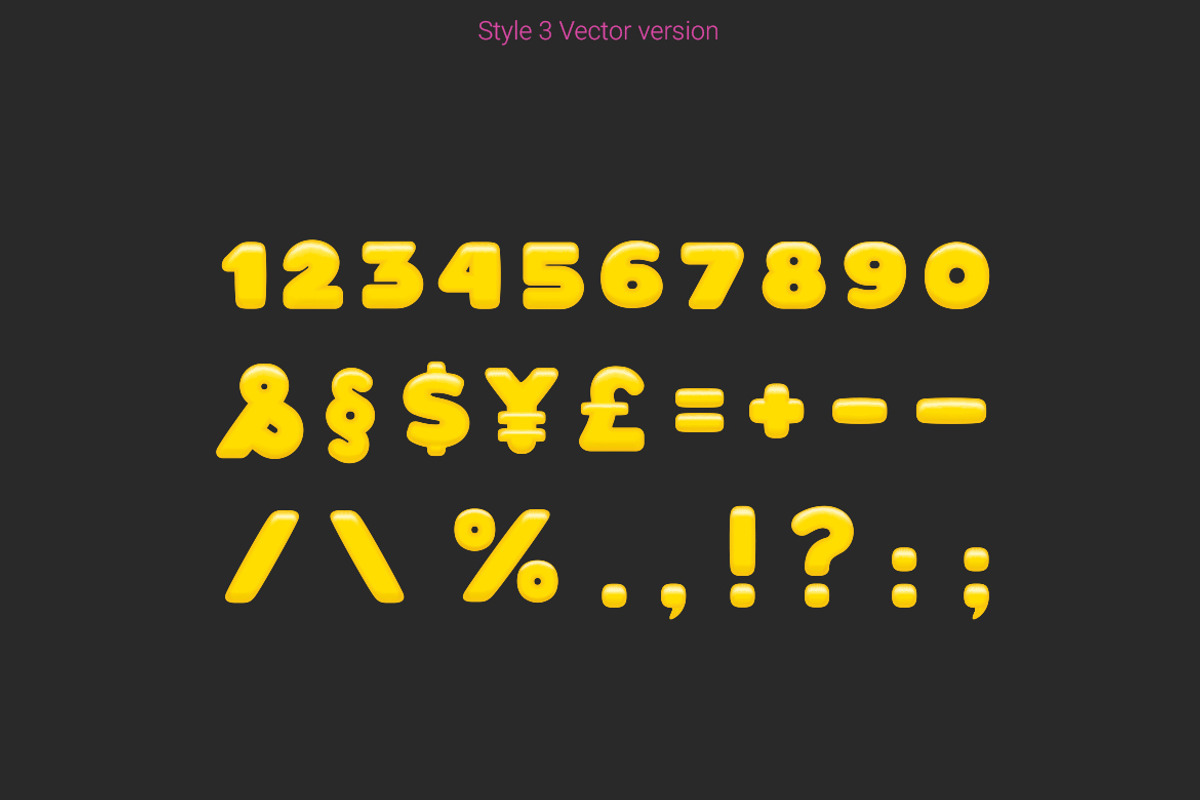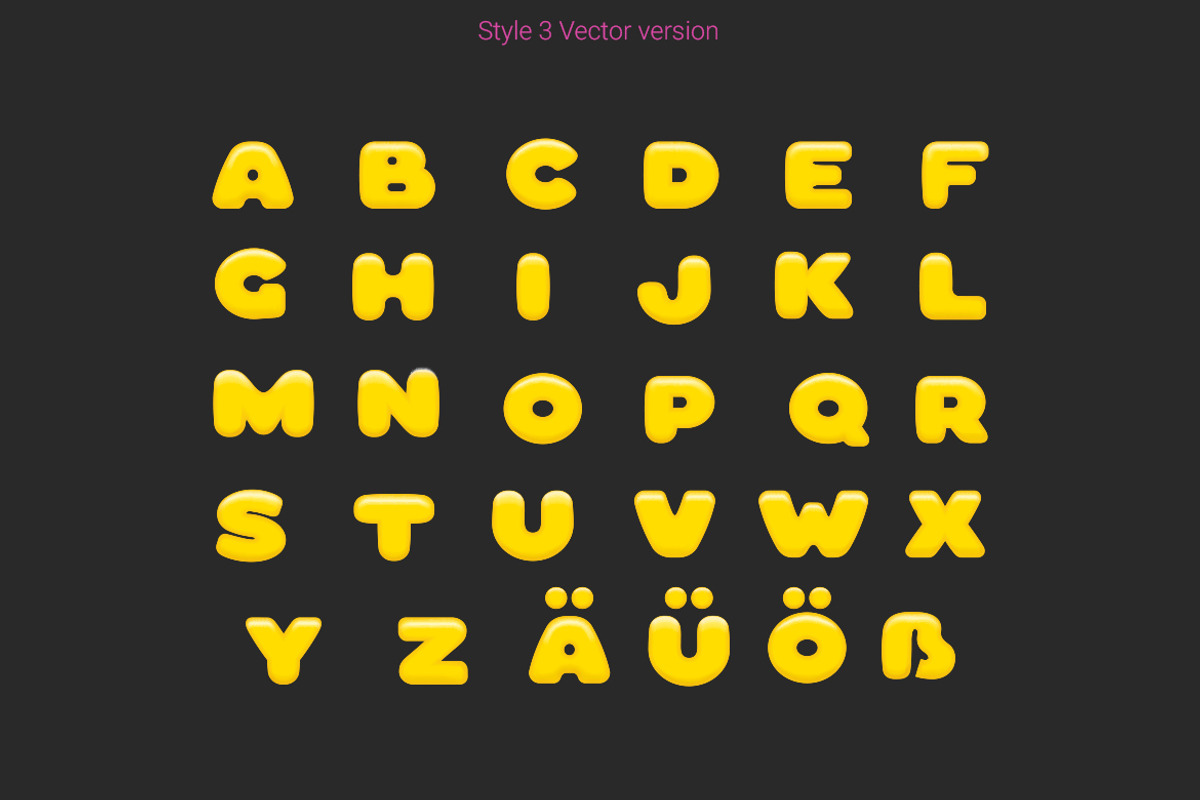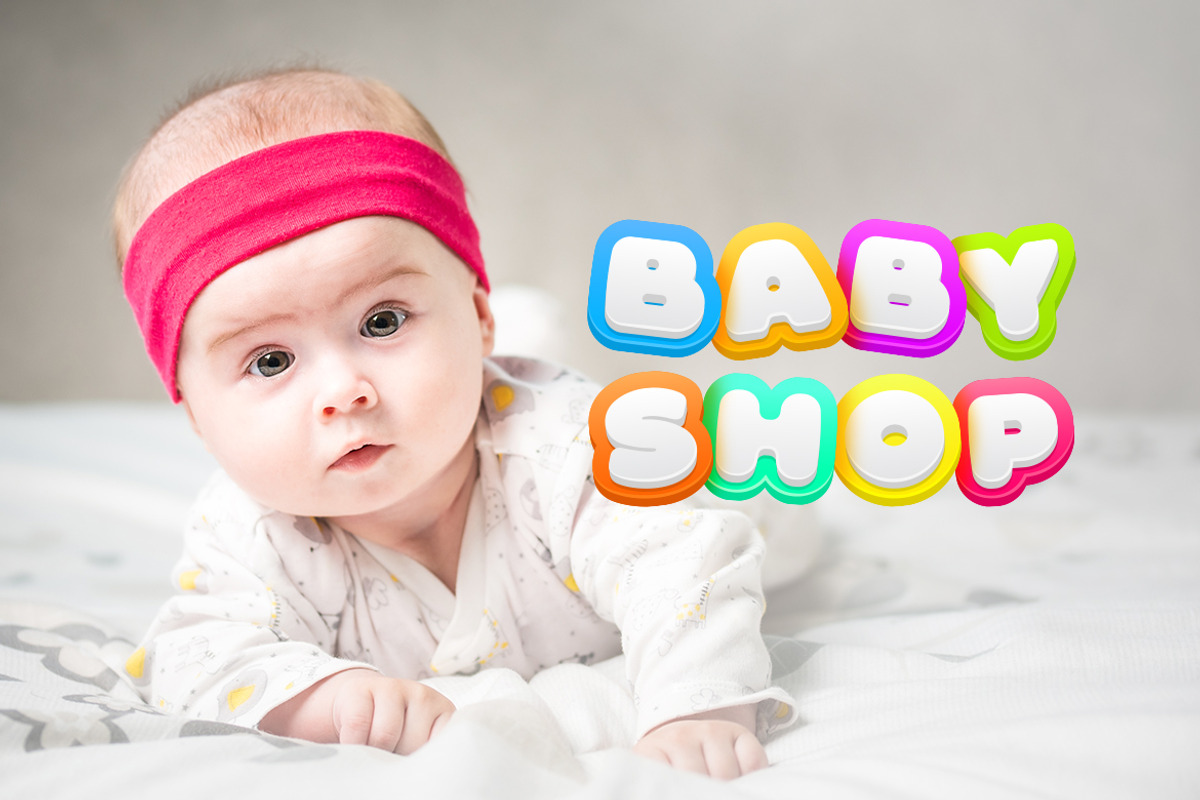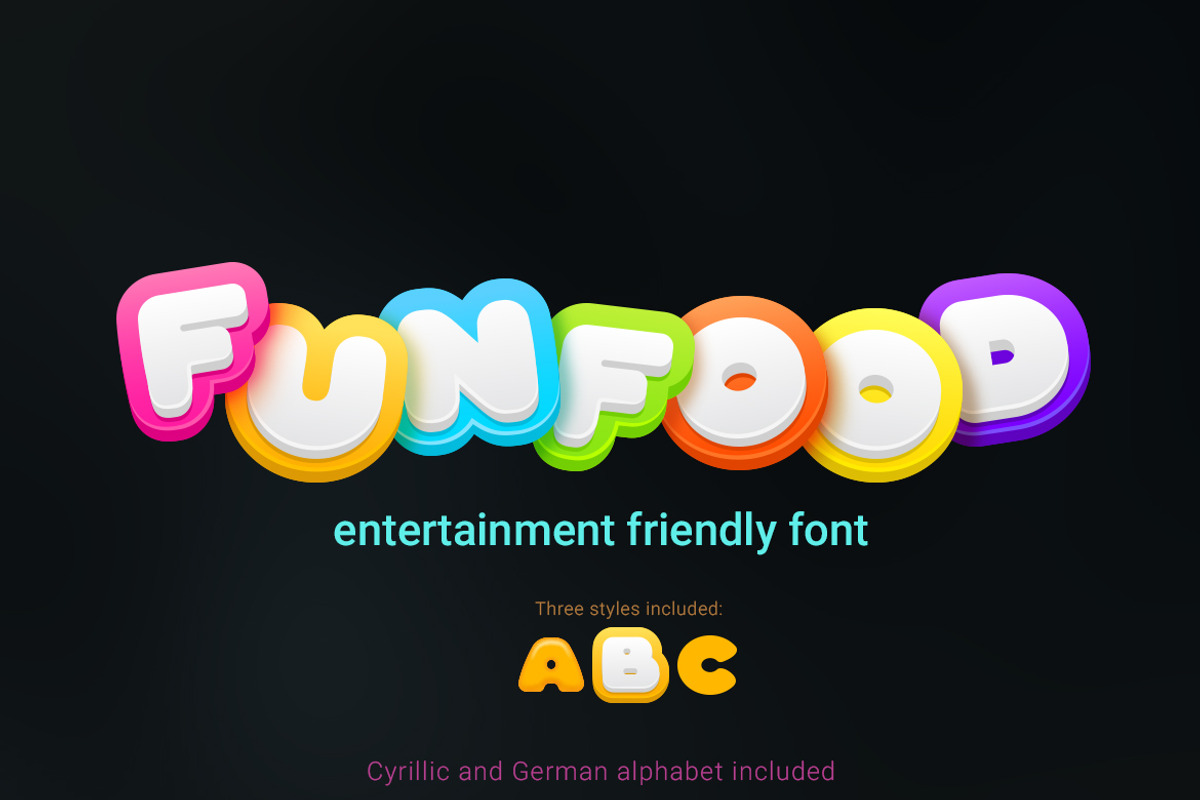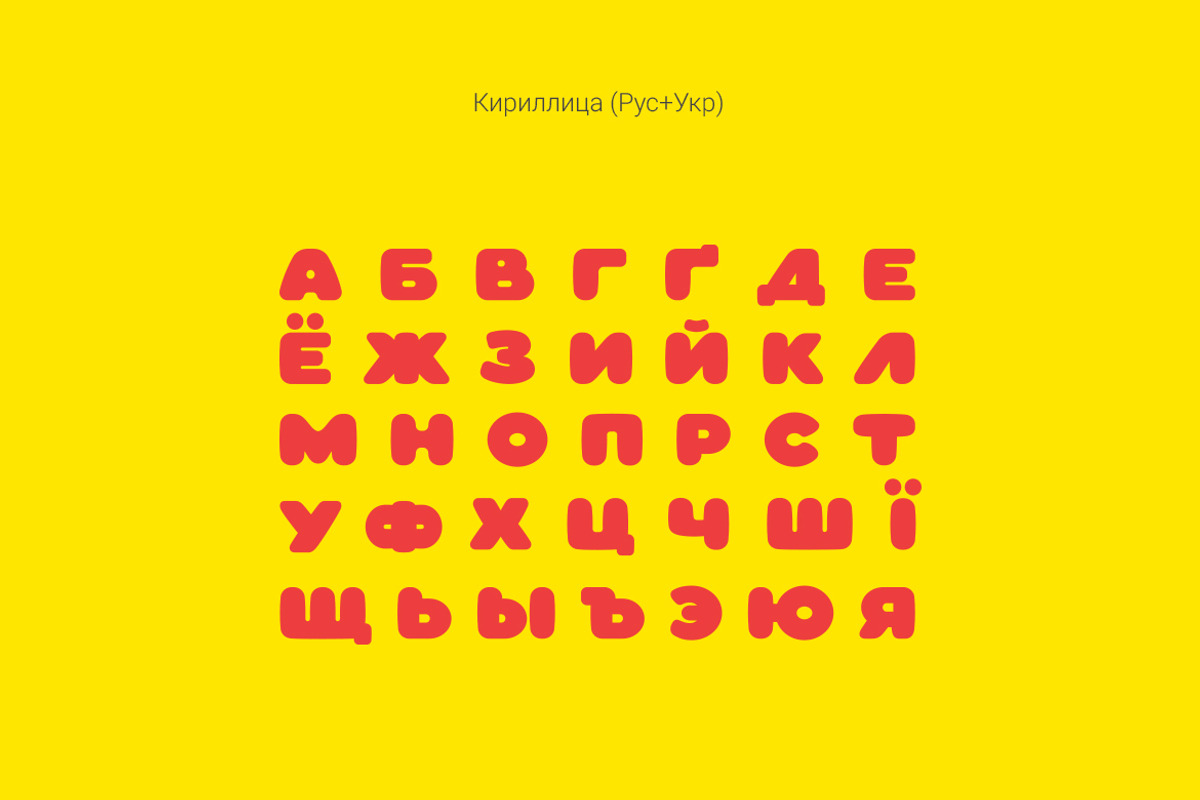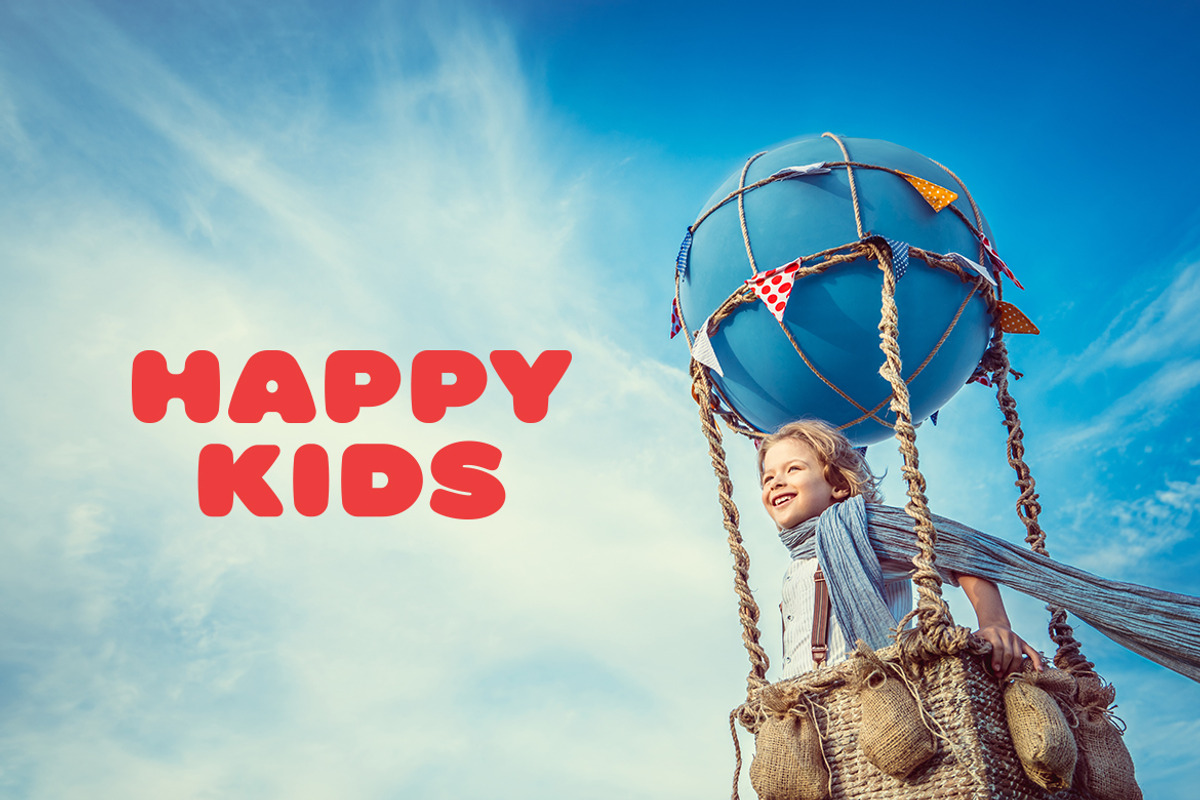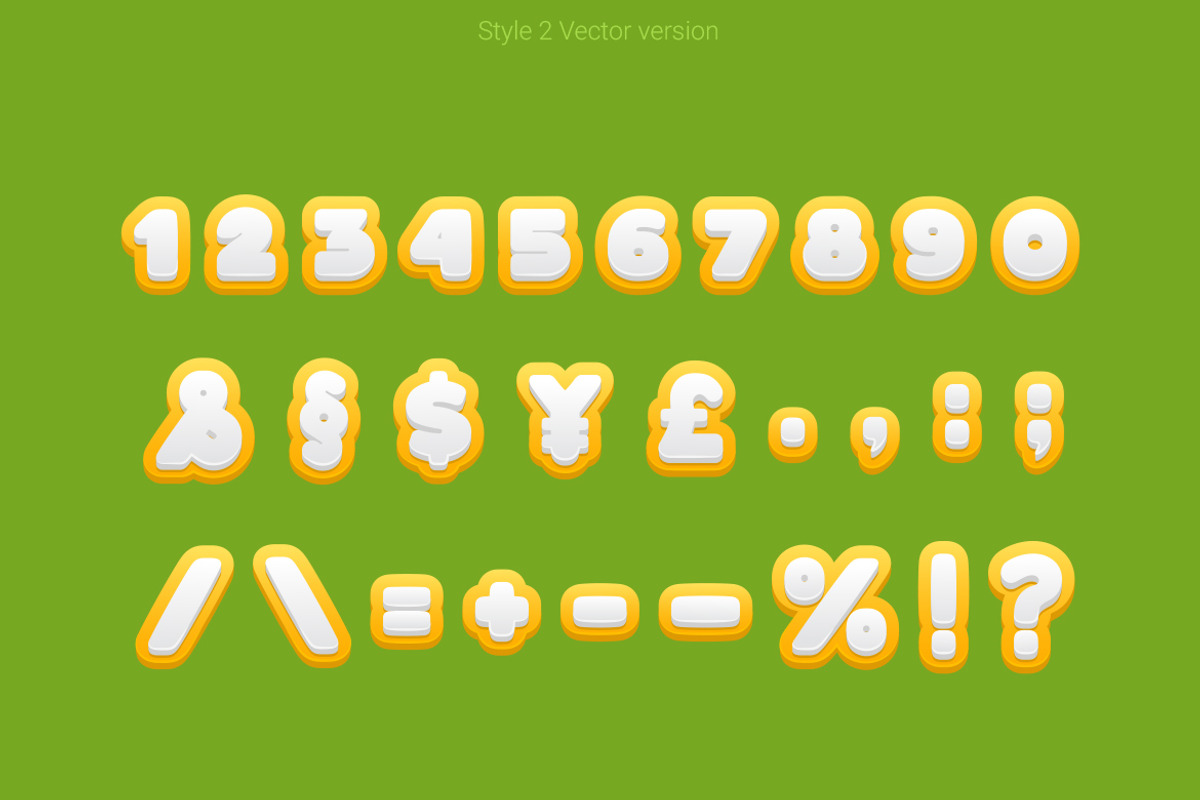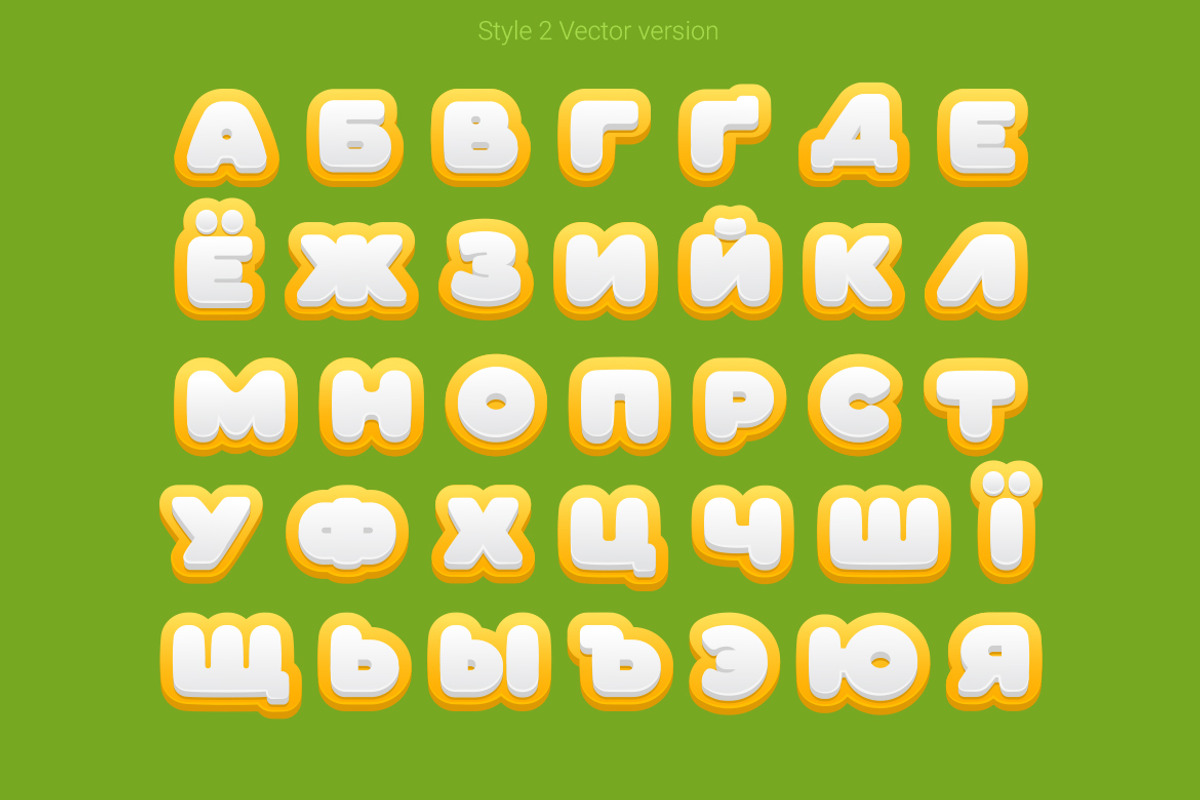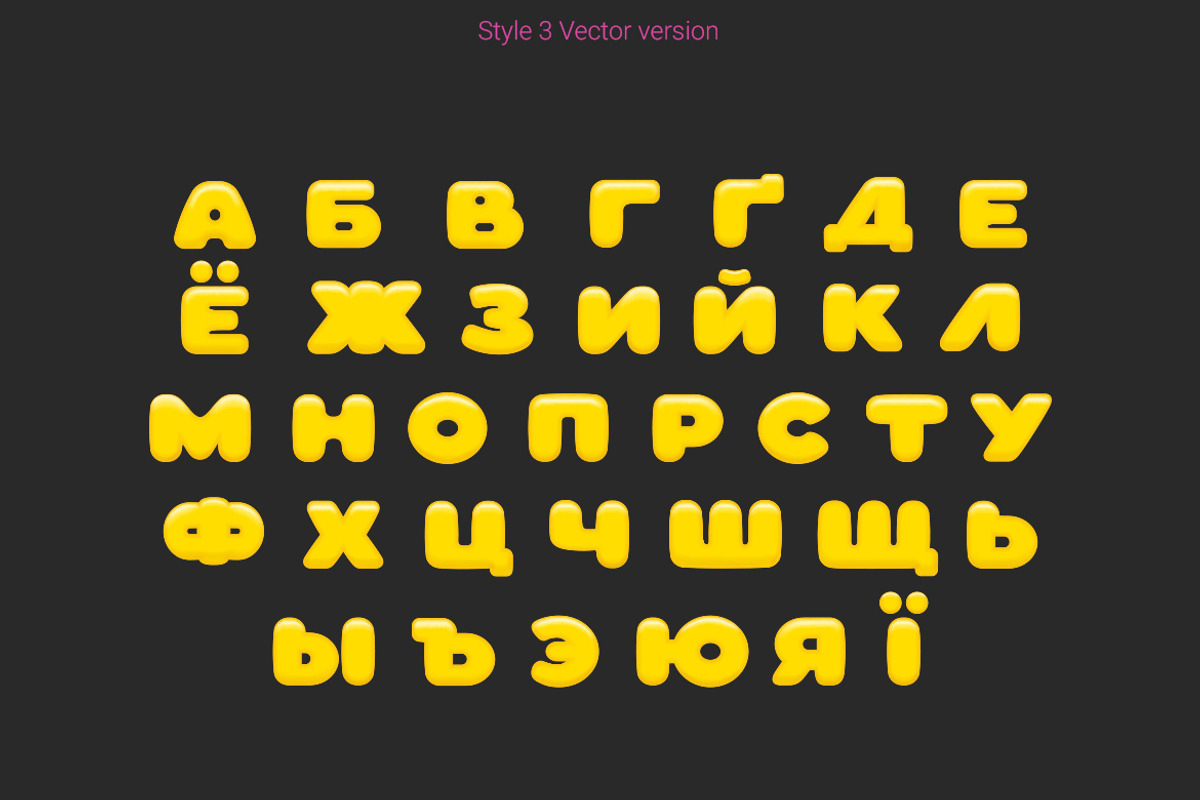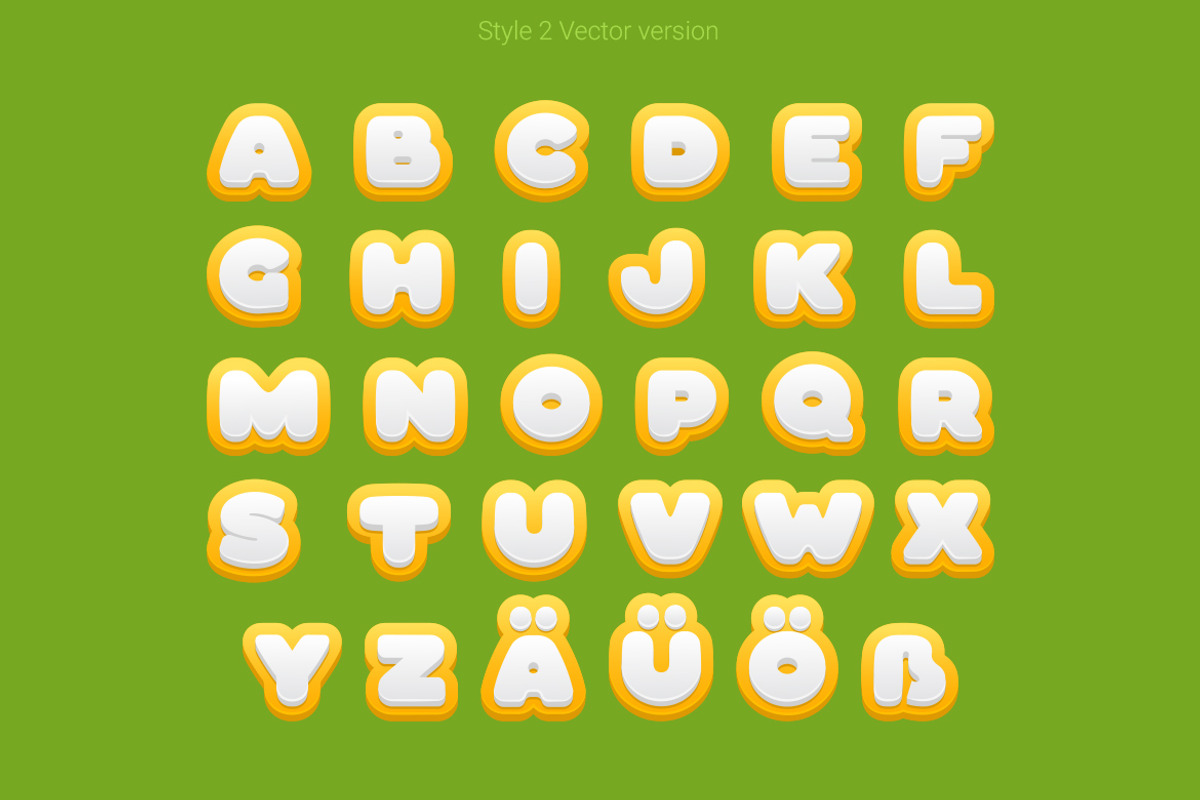
Funfood Font
Funfood is friendly style font designed for such areas as Entertainment, Children Goods, Food etc.
There are German and Cyrillic symbols included.
Also we included additional 2 Vector versions: Glossy and 3DStrokeOut (see the preview images).